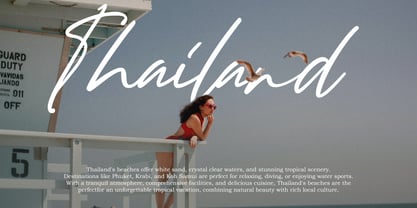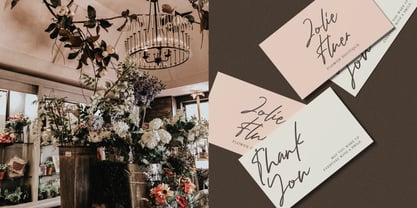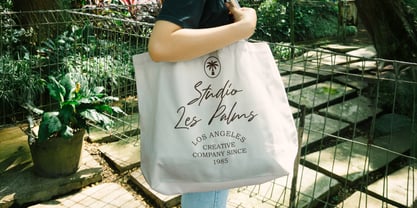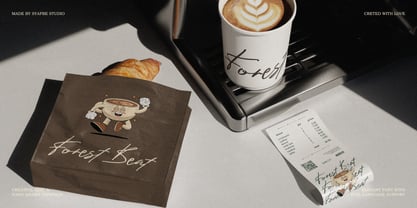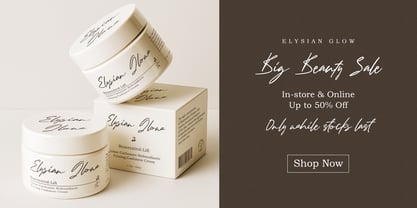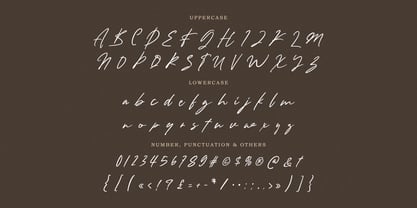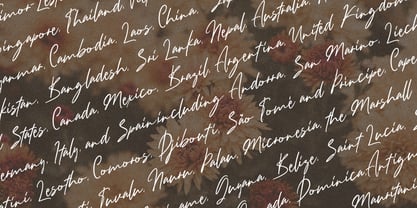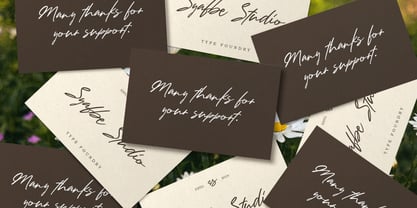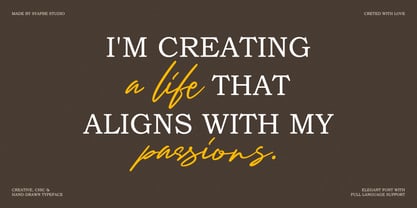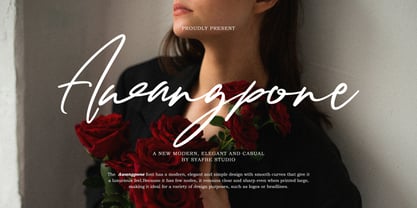
Awangpone
by Syafbe
The Awangpone Font Family was designed by Syafwan Mus and published by Syafbe. Awangpone contains 1 styles.
The Awangpone font features an elegant modern typographic style, with smooth curves and flowing letterforms, creating a luxurious yet dynamic impression. Each letter is designed with detail, yet without being overdone, thus emphasizing a professional and sophisticated feel. This font has a sleek yet bold character, making it a perfect choice for various types of branding, whether for logos, headlines, or other visual content. With a minimalist yet eye-catching feel, Awangpone exudes an aura of modernity that remains chic and sophisticated. The unique feature of the Awangpone font lies in its fewer nodes, making it highly suitable for a variety of design purposes, especially at large sizes. Its characters remain sharp and clear without losing visual quality, making it ideal for banners, posters, or other promotional materials. The design's simple yet "touch of sexiness" beauty makes it the perfect choice for presenting a brand with a premium and elegant feel. With Awangpone, every piece of work will stand out, captivate attention, and, of course, maintain its high quality in any size.